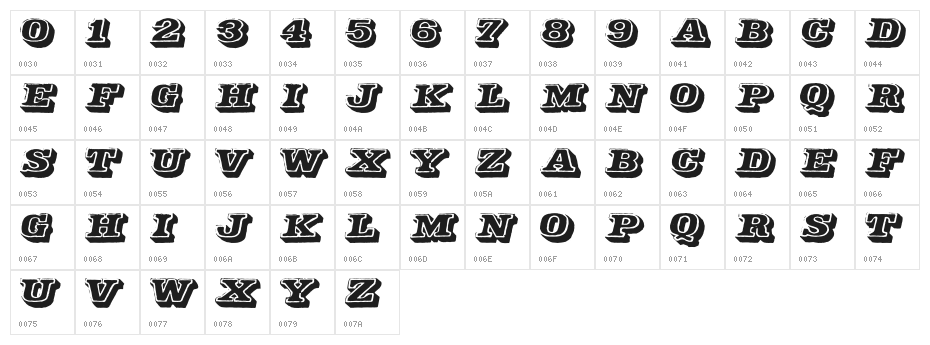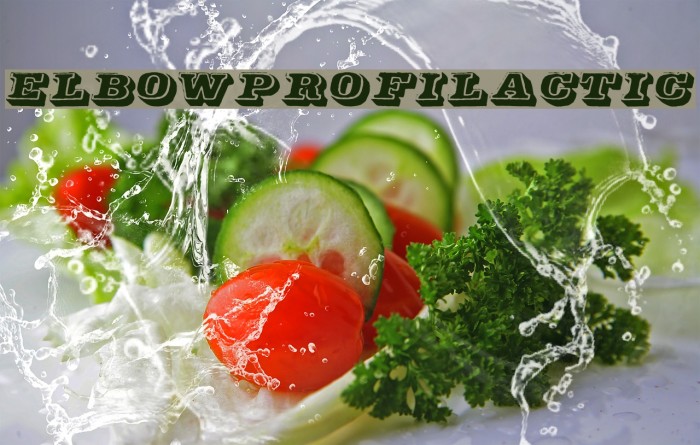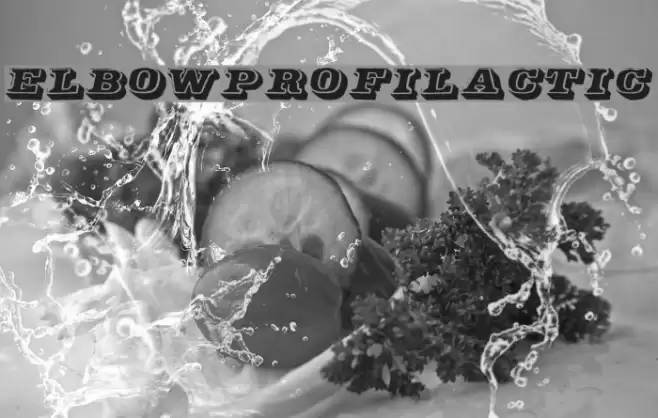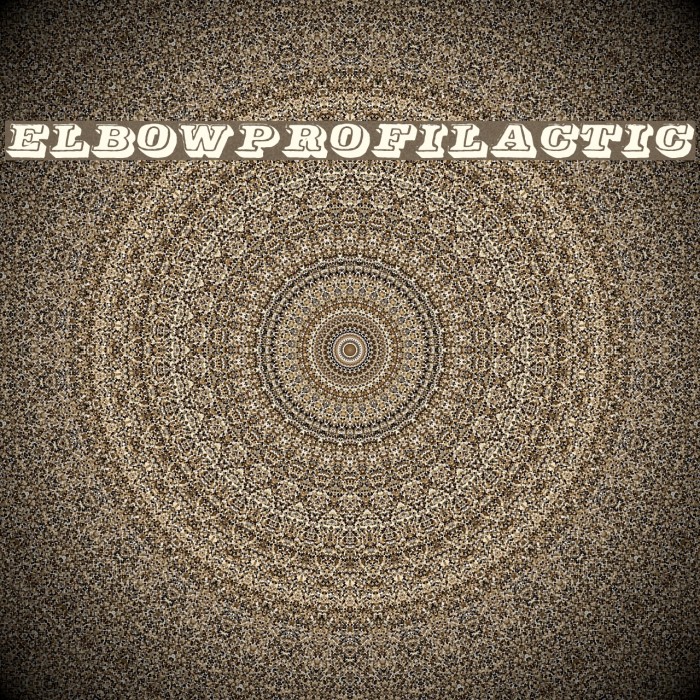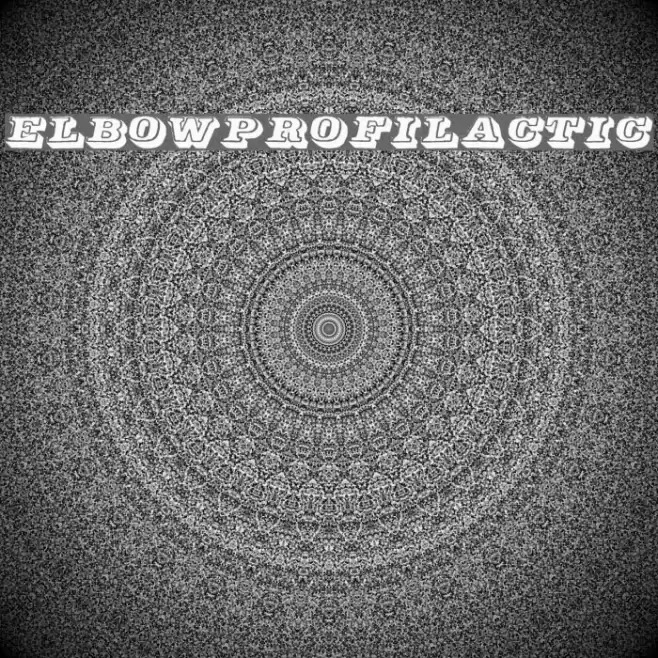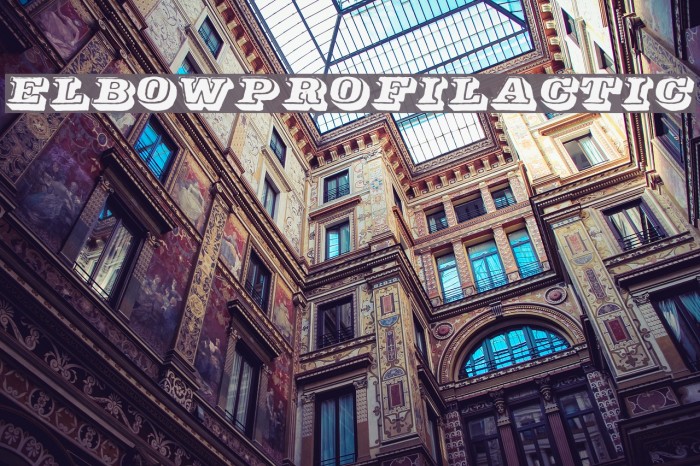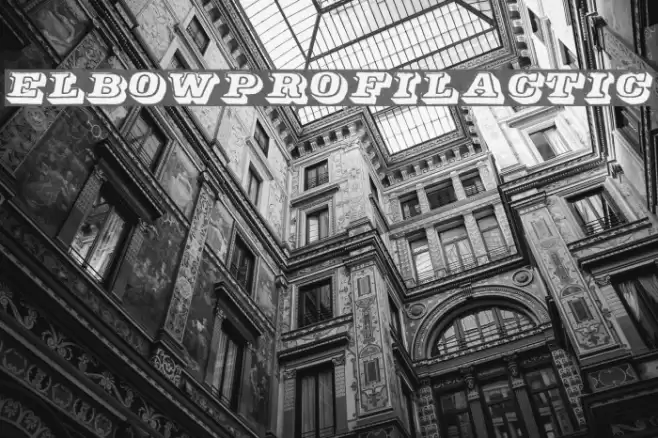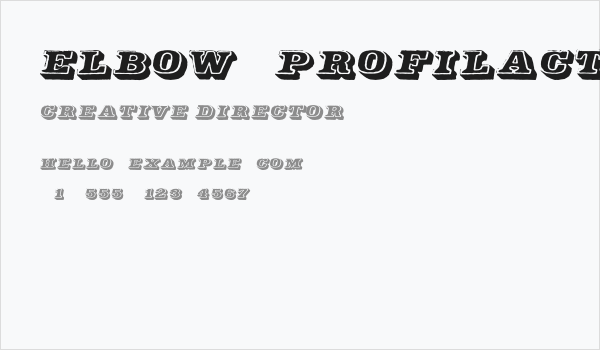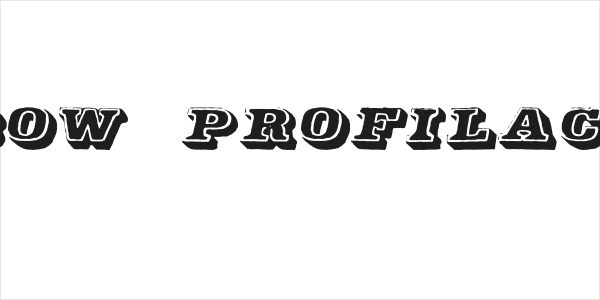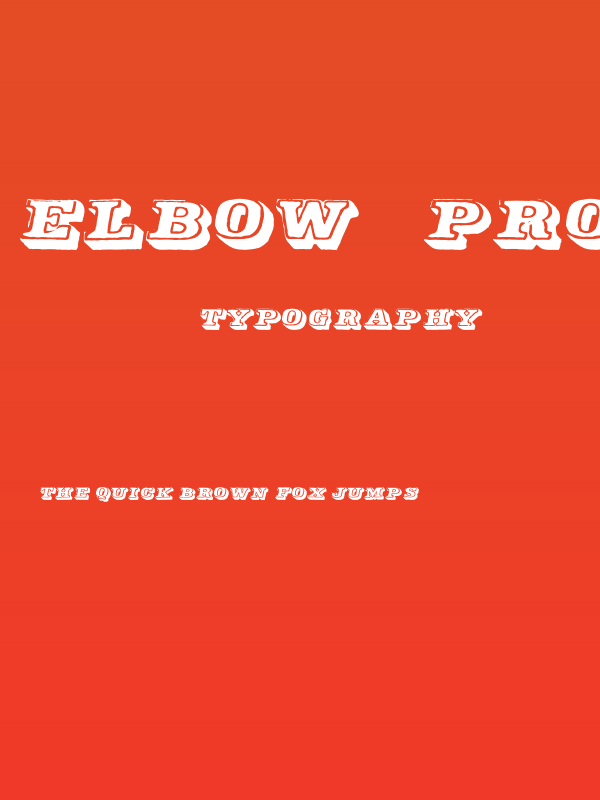
Elbow-Profilactic Font
Elbow-Profilactic Description
This font features a bold, three-dimensional style with a strong, shadowed effect that gives each character a sense of depth and solidity. The uppercase letters are prominently displayed with thick strokes and a distinct outline that enhances their visibility. The numbers follow the same design principles, ensuring consistency across all characters. The font's design is reminiscent of vintage signage or posters, where boldness and clarity are paramount. Its decorative nature makes it suitable for projects that require a standout, eye-catching typeface.
| Proposed Projects | Ideal for vintage-themed posters, signage, logos, and any design requiring a bold, standout typeface. |